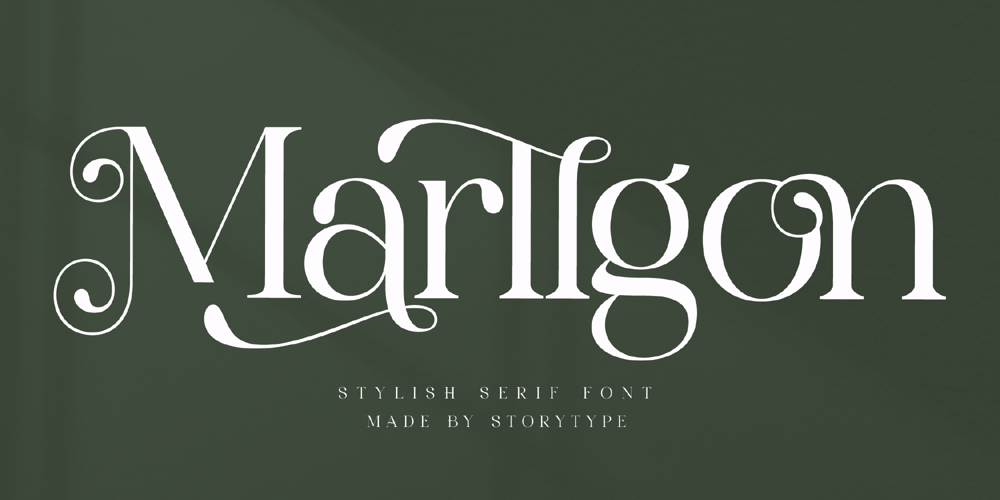
Marllgon
Marllgon font
Marllgon Font Family was designed by Heru Utama Putra and published by Letterena Studios. Marllgon contains 2 styles and family package options. Marllgon is a modern and classy serif font with a unique style and fancy look. This typeface is perfect for an elegant & luxury logo, book or movie title design, fashion brand, magazine, clothes, lettering, quotes, and so much more.